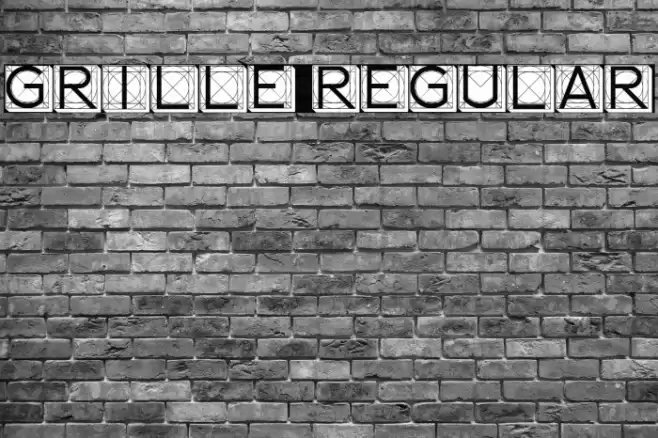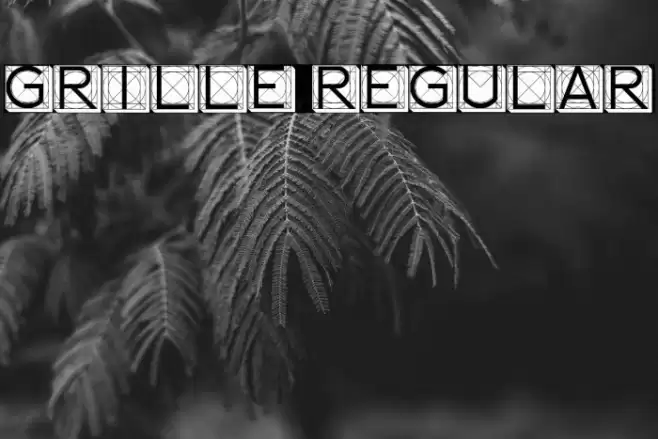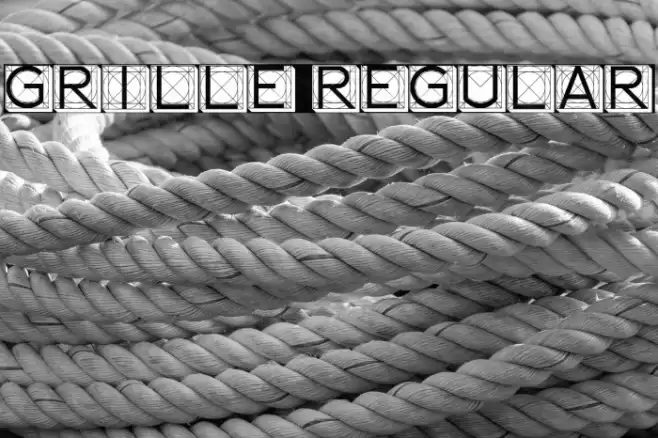
Grille Regular Font
Grille Regular Description
This font features a unique geometric design with letters enclosed in square frames, creating a striking visual effect. The characters are composed of intersecting lines and shapes, giving them a complex, grid-like appearance. The overall style is modern and architectural, with a strong emphasis on symmetry and structure. The font's intricate details make it stand out, suitable for projects that require a bold and artistic touch. Its decorative nature makes it ideal for headlines or logos where a distinctive look is desired.
A geometric, grid-like font with intricate, modern design elements from Uncategorized fonts.
- Proposed Projects: Ideal for architectural branding, modern art posters, and innovative logo designs.